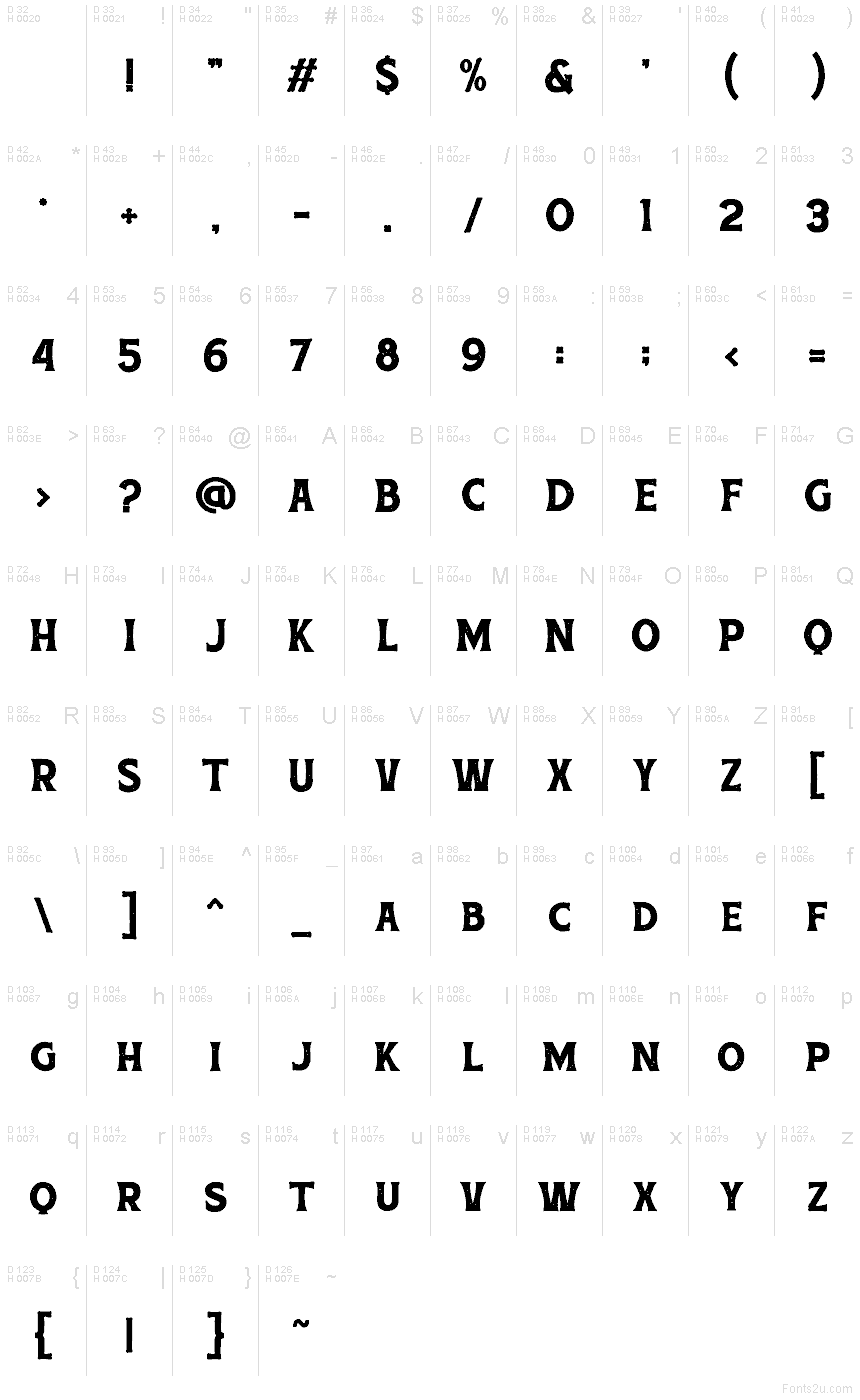
Cracked Concrete Display Rough
Cracked Concrete Display Rough font by PutraCetol Studio is a free retro eroded display typeface from the Cracked Concrete family. Its thick, blocky forms are chewed up with pitted speckles and chipped edges, like letters stamped into weathered cement. The texture reads loud and tactile, giving headlines a gritty, industrial punch without needing extra graphics.
Using Cracked Concrete Display Rough, your titles snap on event posters, horror covers, streetwear branding, skate zines, game splash screens, and YouTube thumbnails. The rhythm is bold and compact, so the roughness stays legible even at a distance. Give it a touch of extra tracking and keep it big; pair with a clean geometric sans for body copy to let this free font’s rugged surface do the talking.